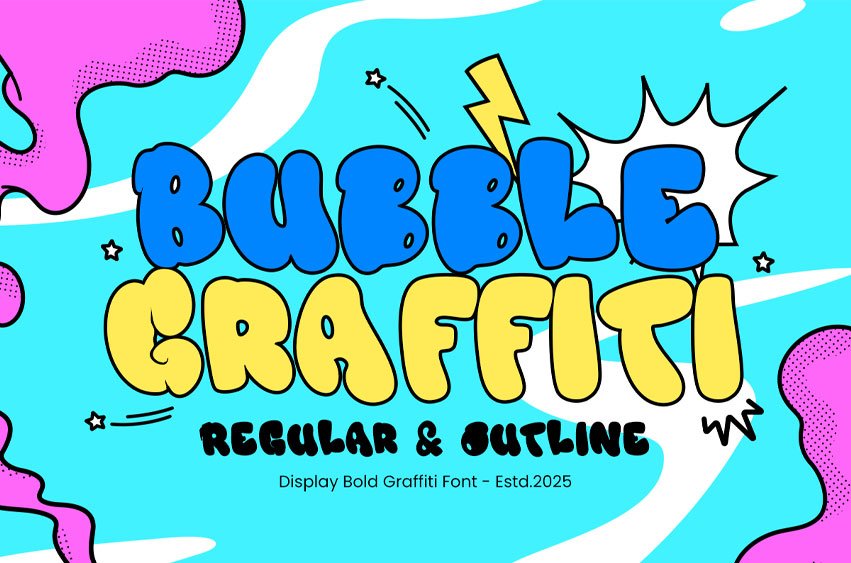
Bubble Graffiti Font is a bold display graffiti font inspired by urban street art and vibrant city culture. With its thick, playful shapes and energetic style, BUBBLE GRAFFITI is perfect for posters, logos, branding, and projects that demand a strong, expressive presence.
Whether you’re designing streetwear graphics, music album covers, youth-oriented branding, or creative artwork, BUBBLE GRAFFITI delivers a bold, artistic flair that captures attention instantly. Its playful, modern shapes make it both fun and versatile for various creative projects.
BUBBLE GRAFFITI – Display Bold Graffiti Font Features
- Bold and playful graffiti-inspired letterforms
- Perfect for street art, posters, logos, and urban branding
- Includes uppercase, lowercase, numerals, and punctuation
- Energetic and expressive style for creative projects
- OpenType features for versatile typographic use
Bring the streets to your designs with BUBBLE GRAFFITI – the ultimate bold font for urban, creative, and edgy projects.